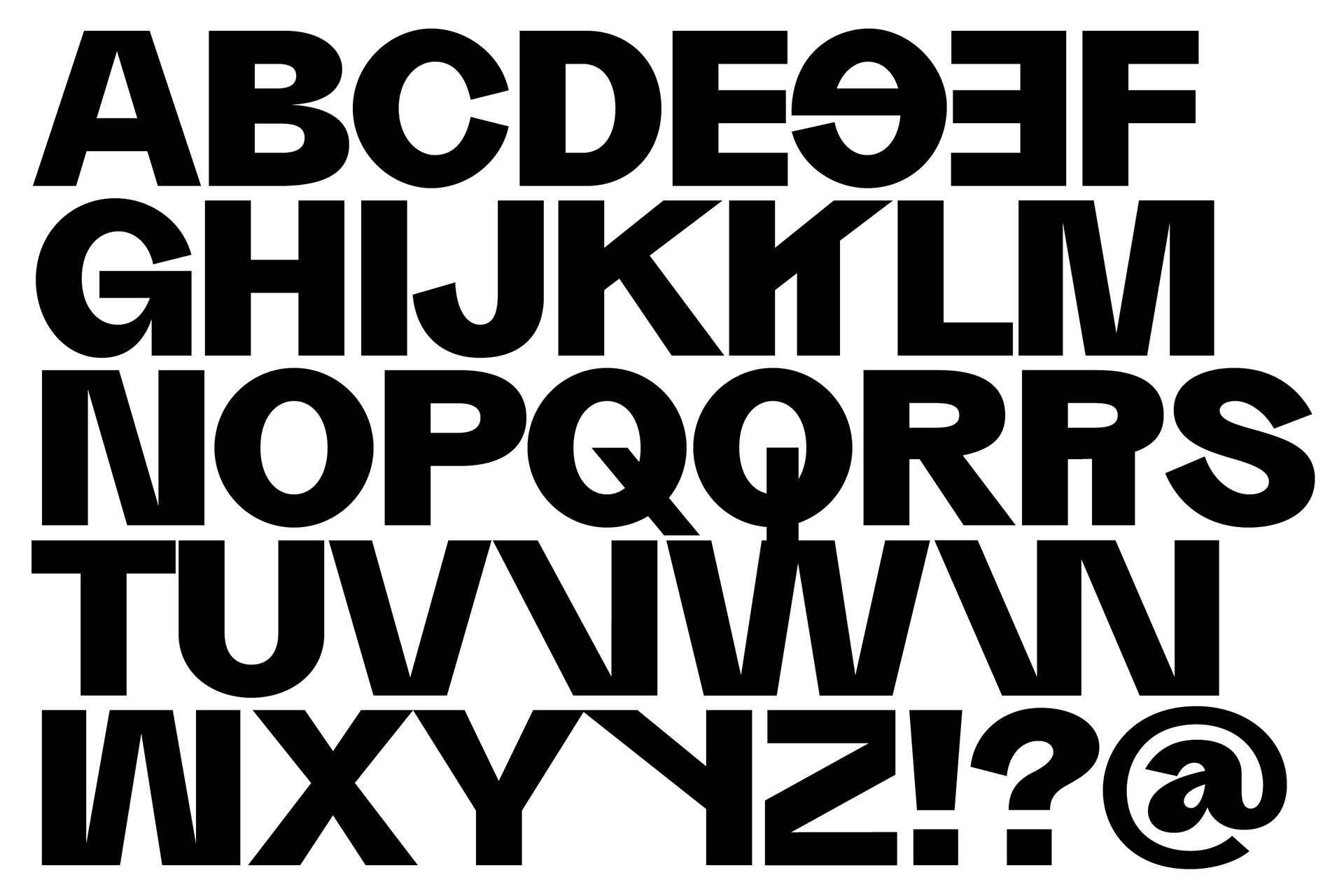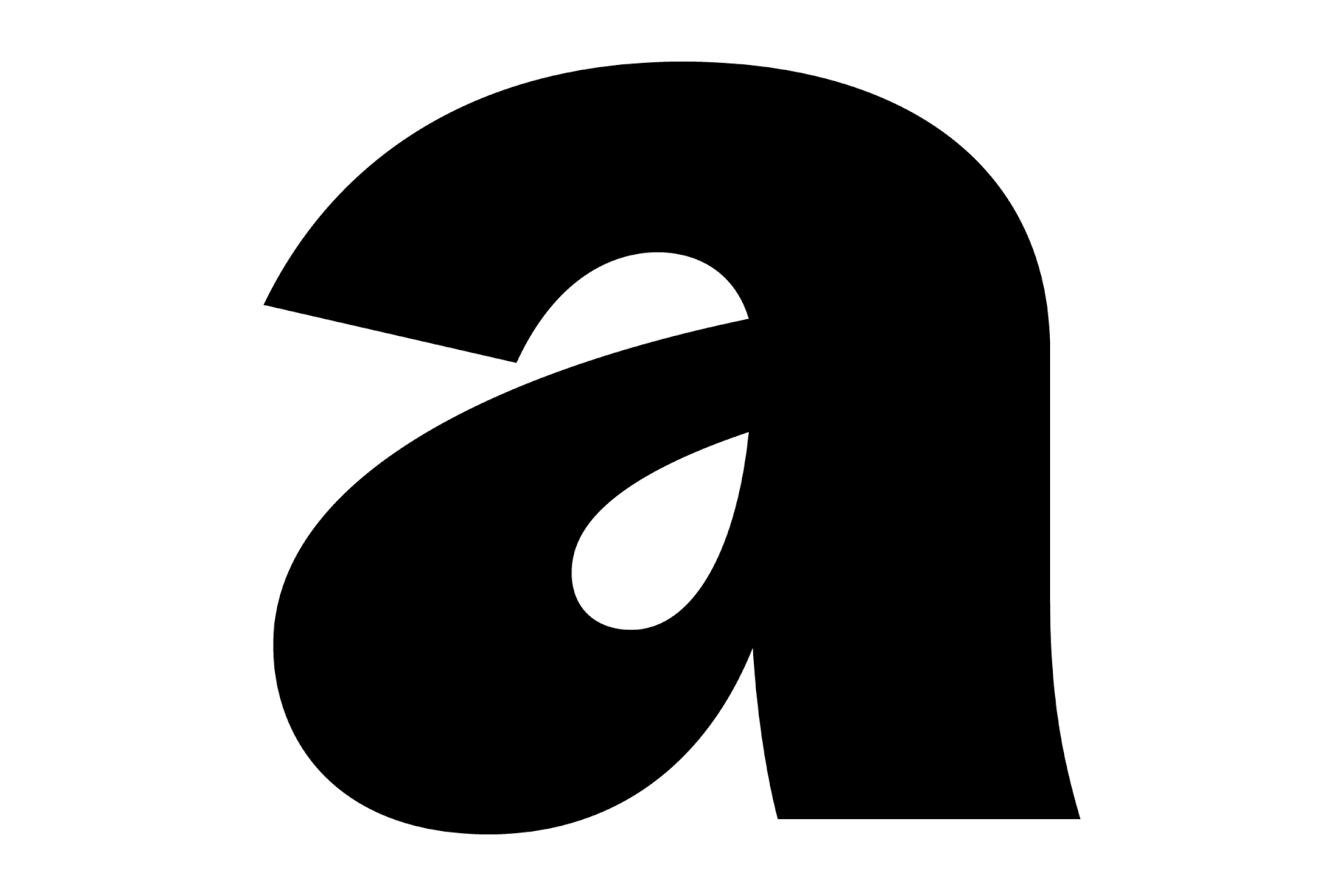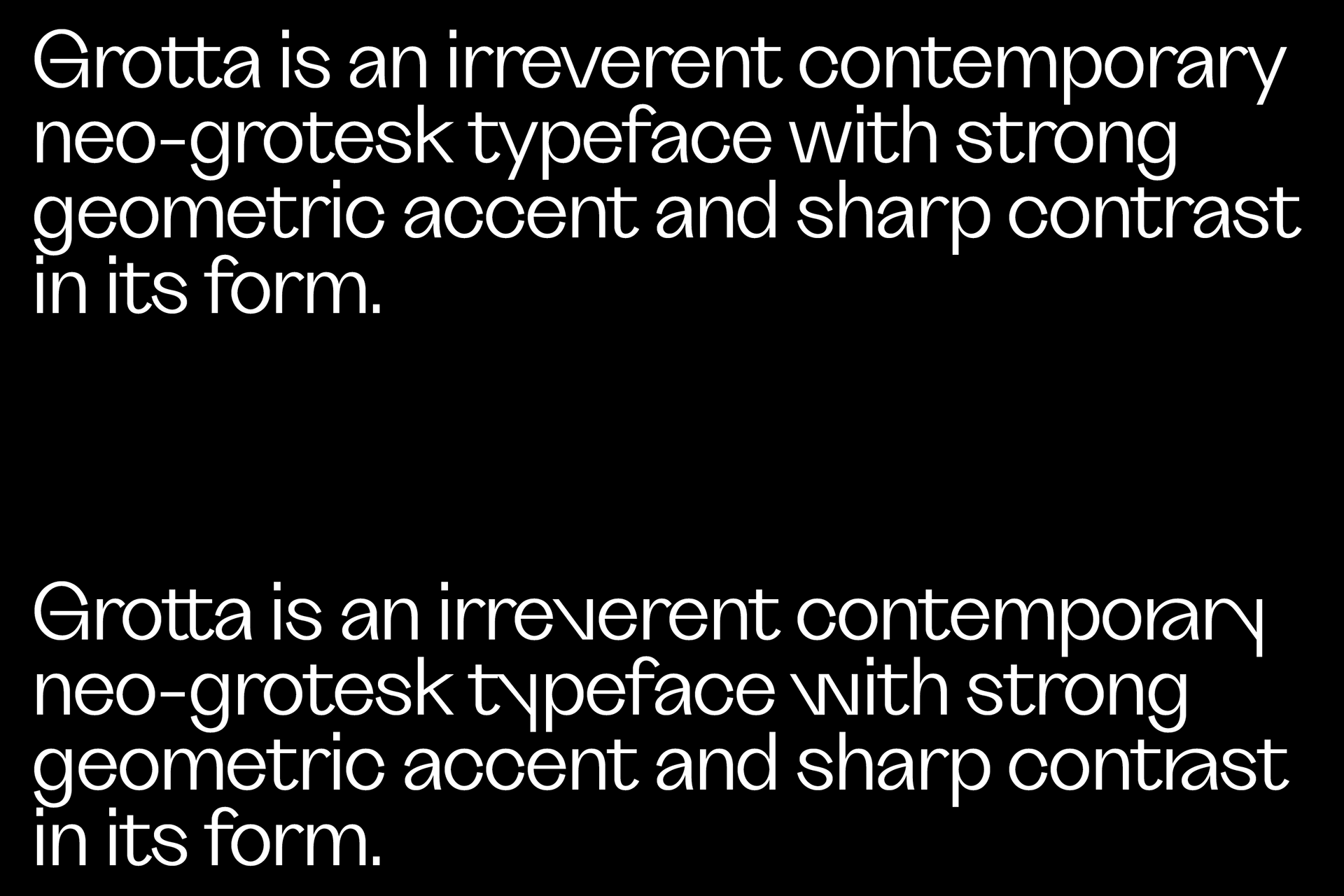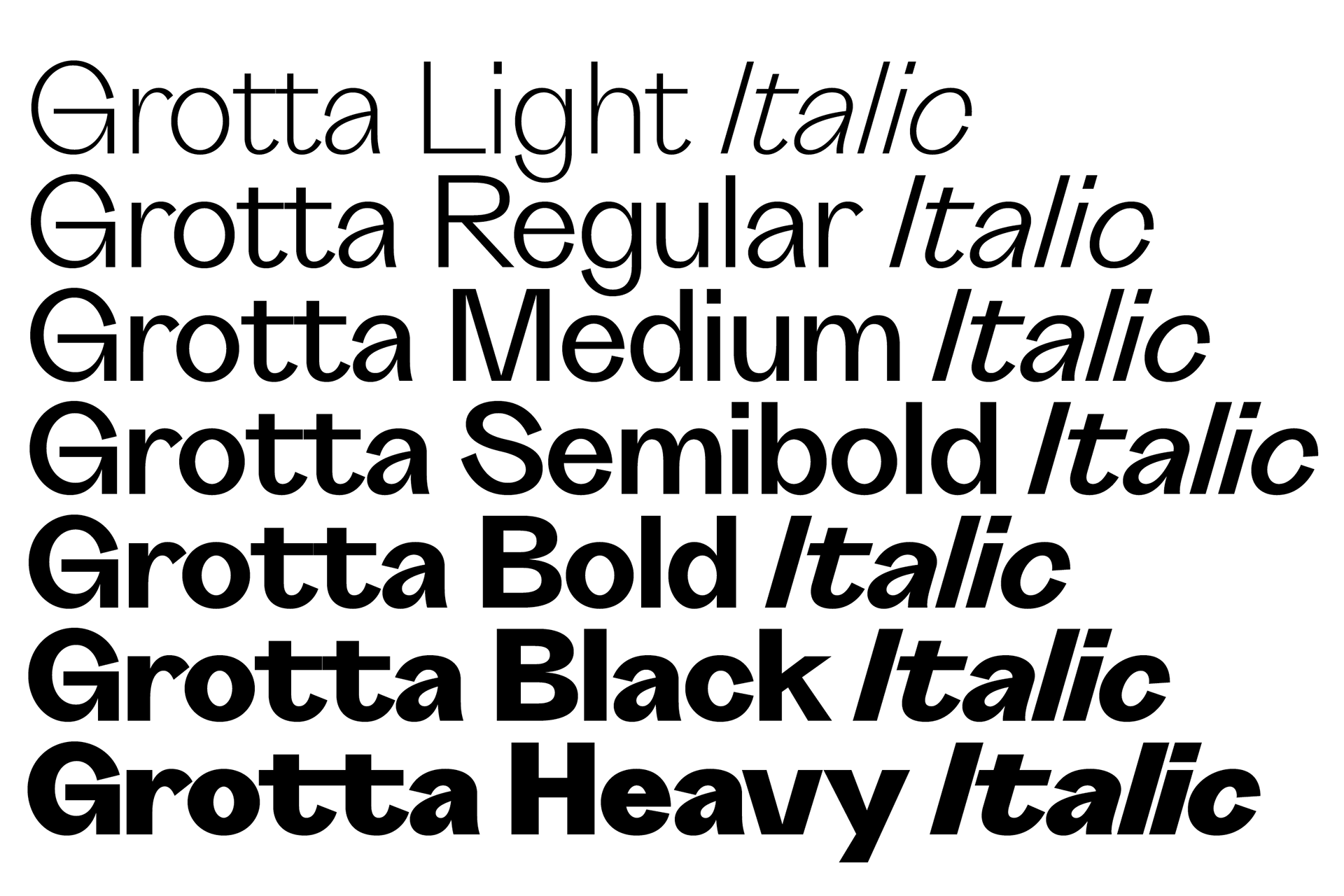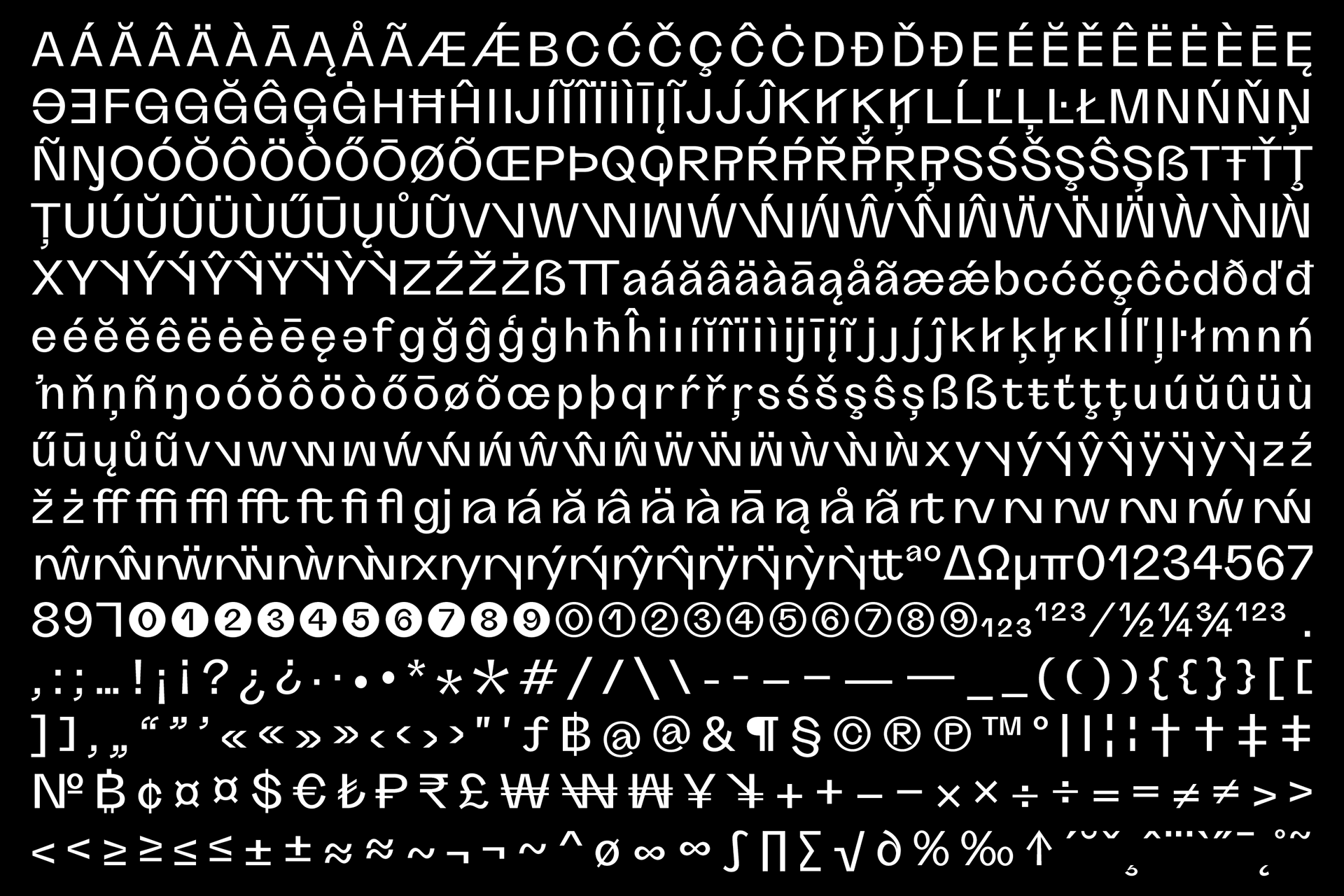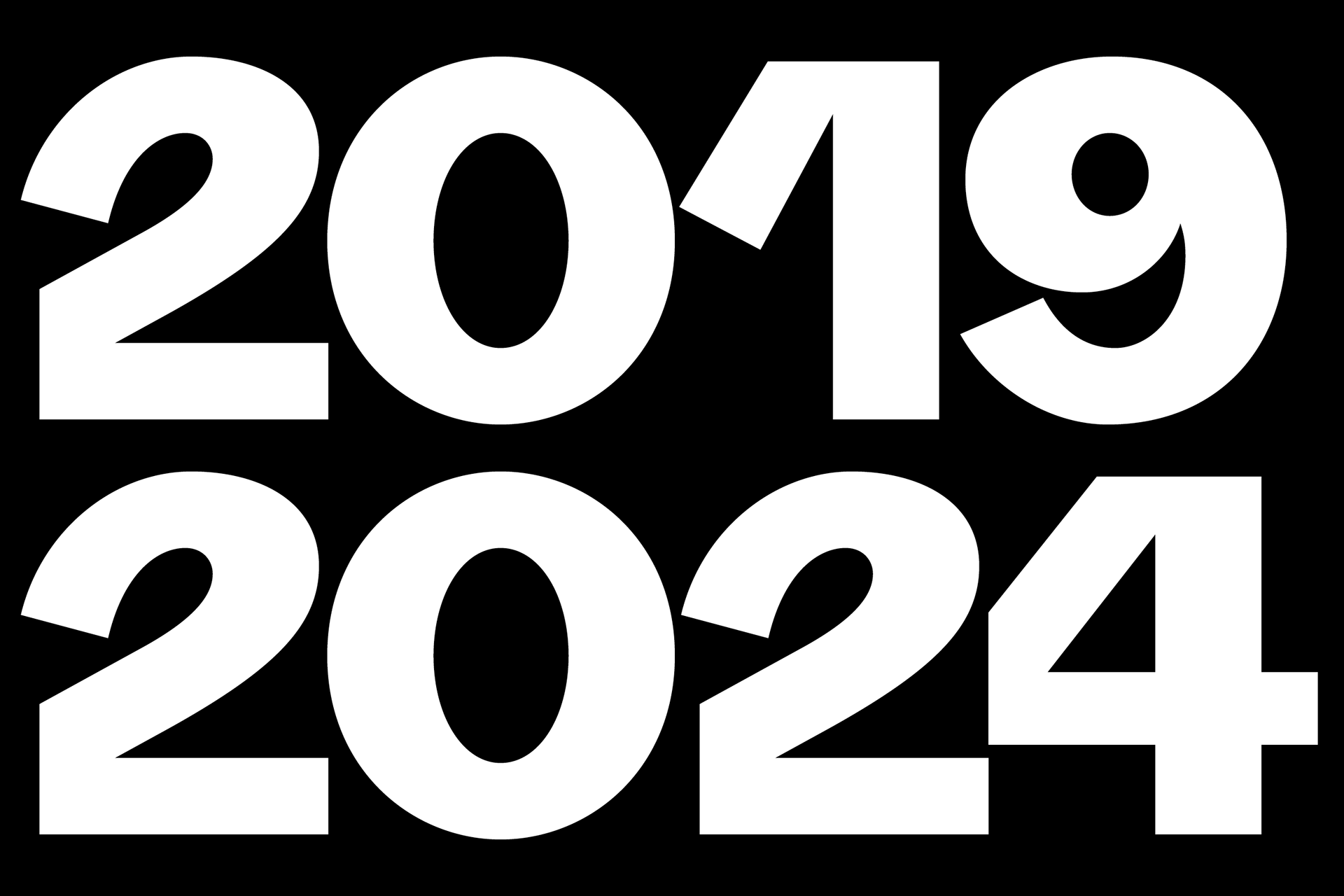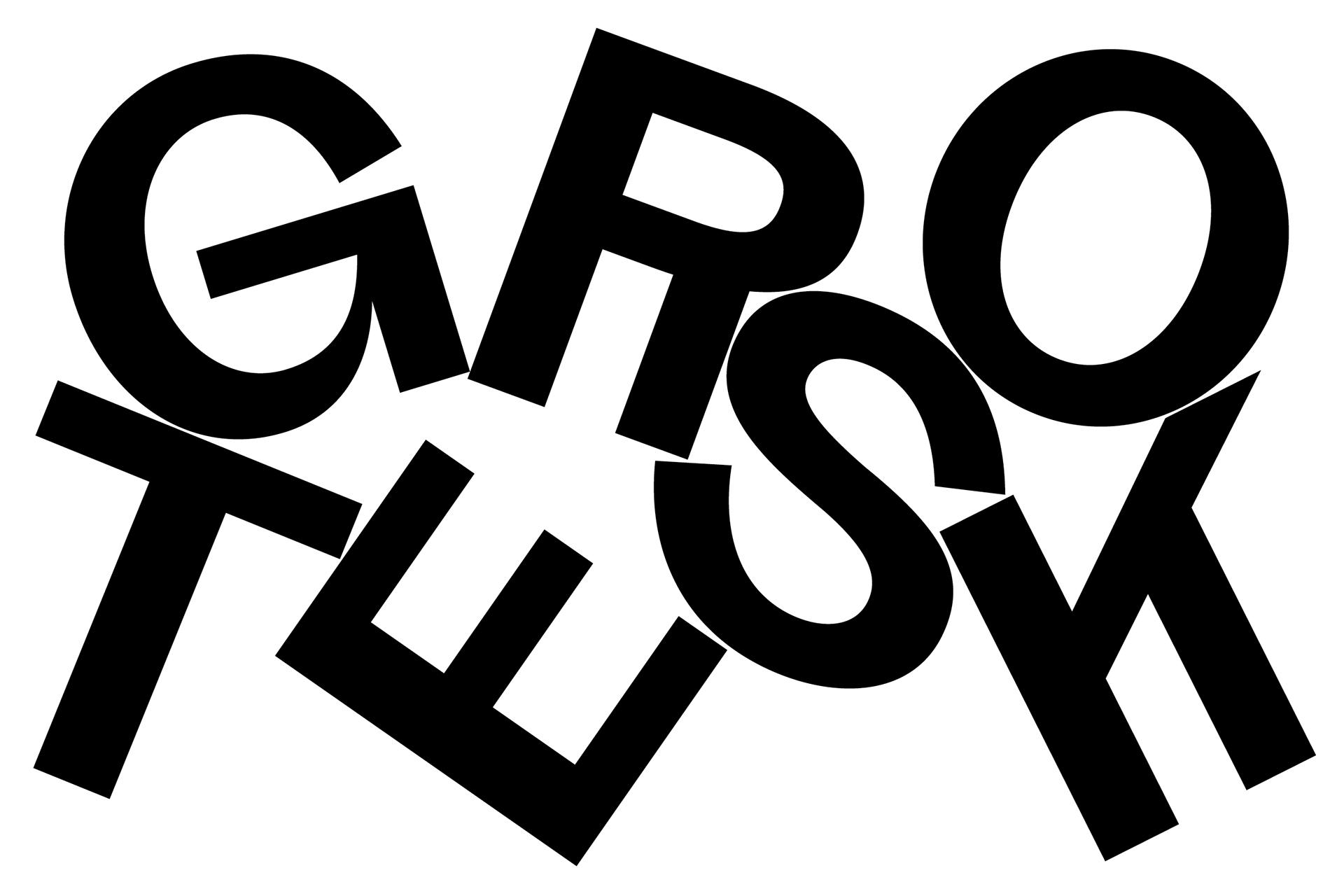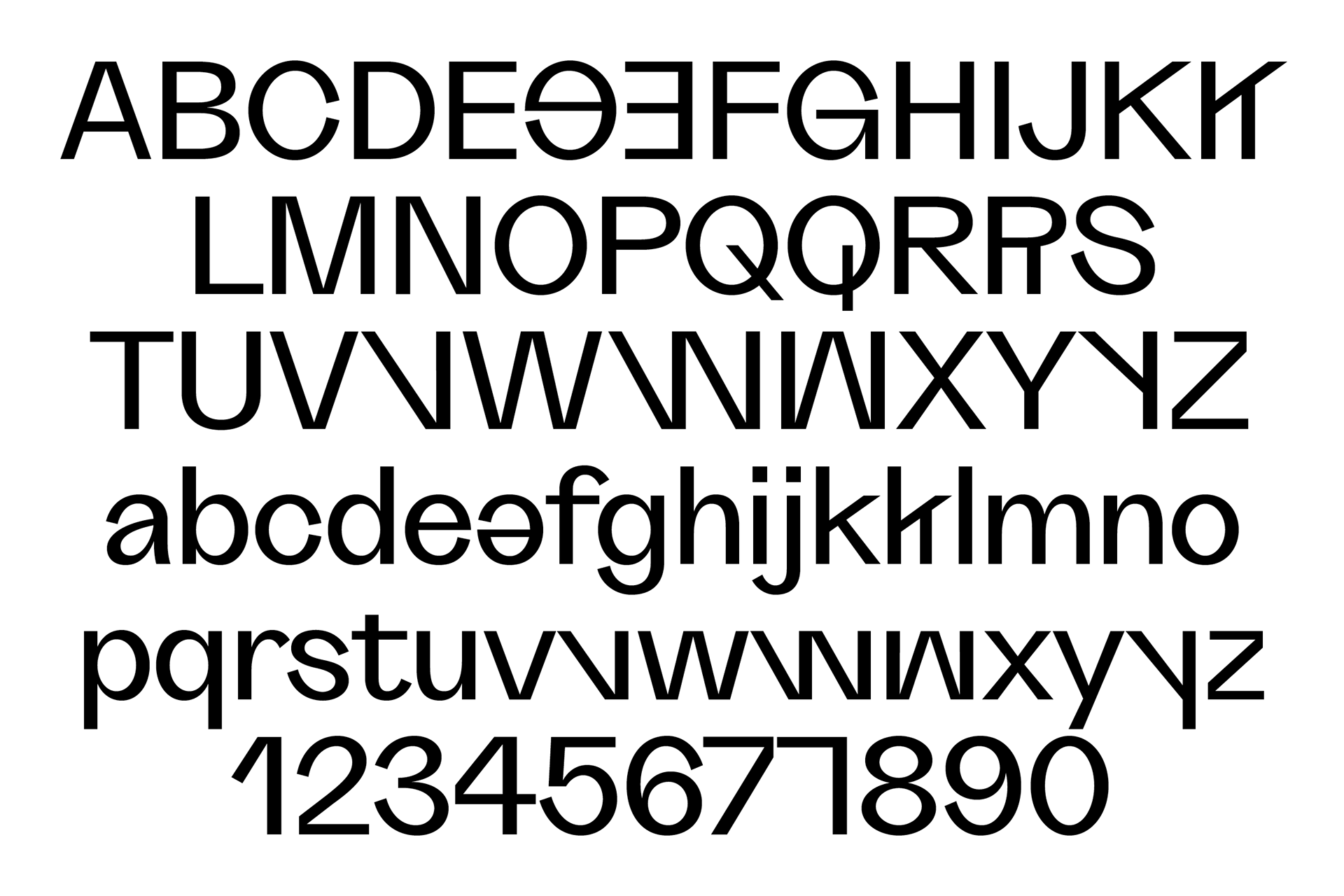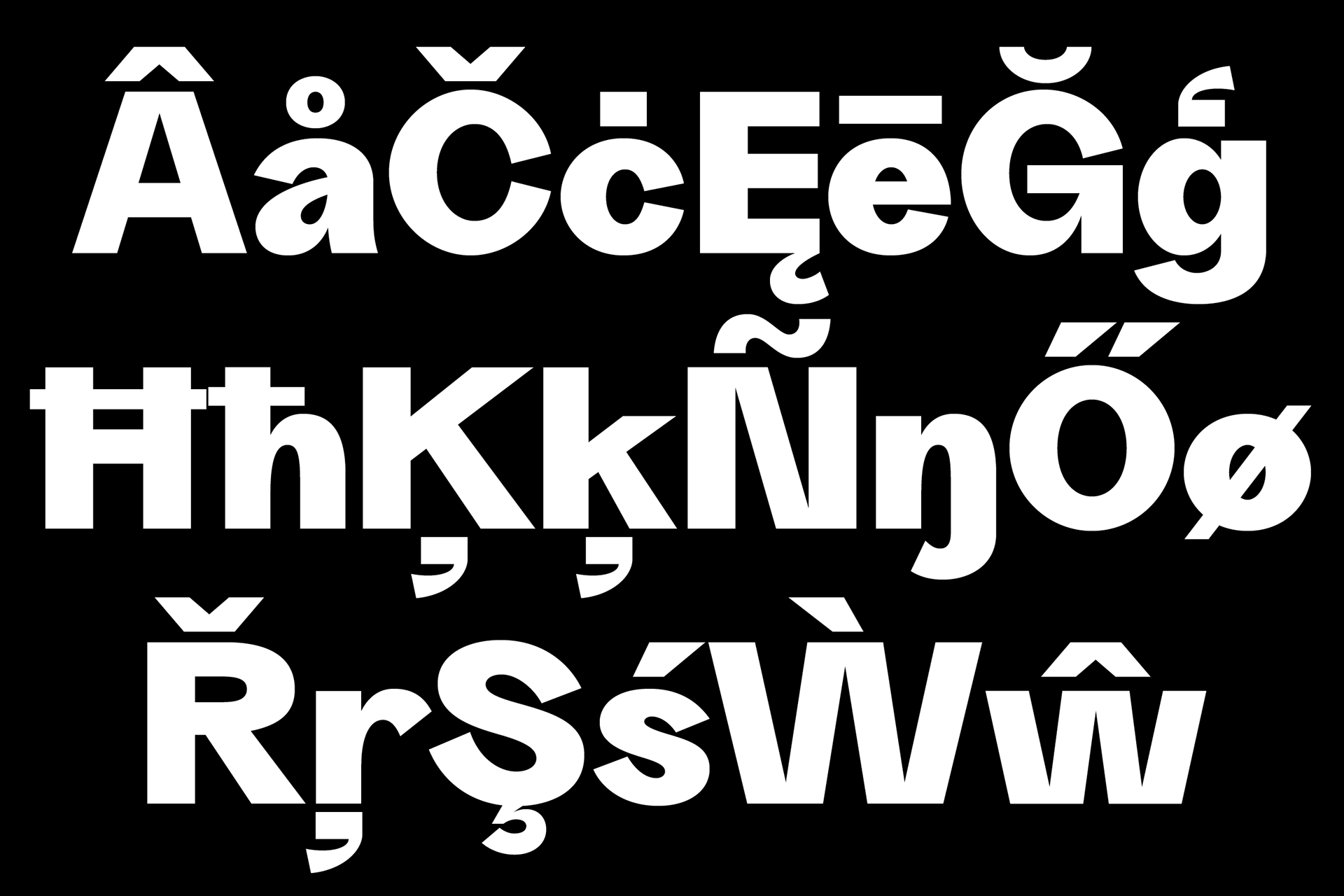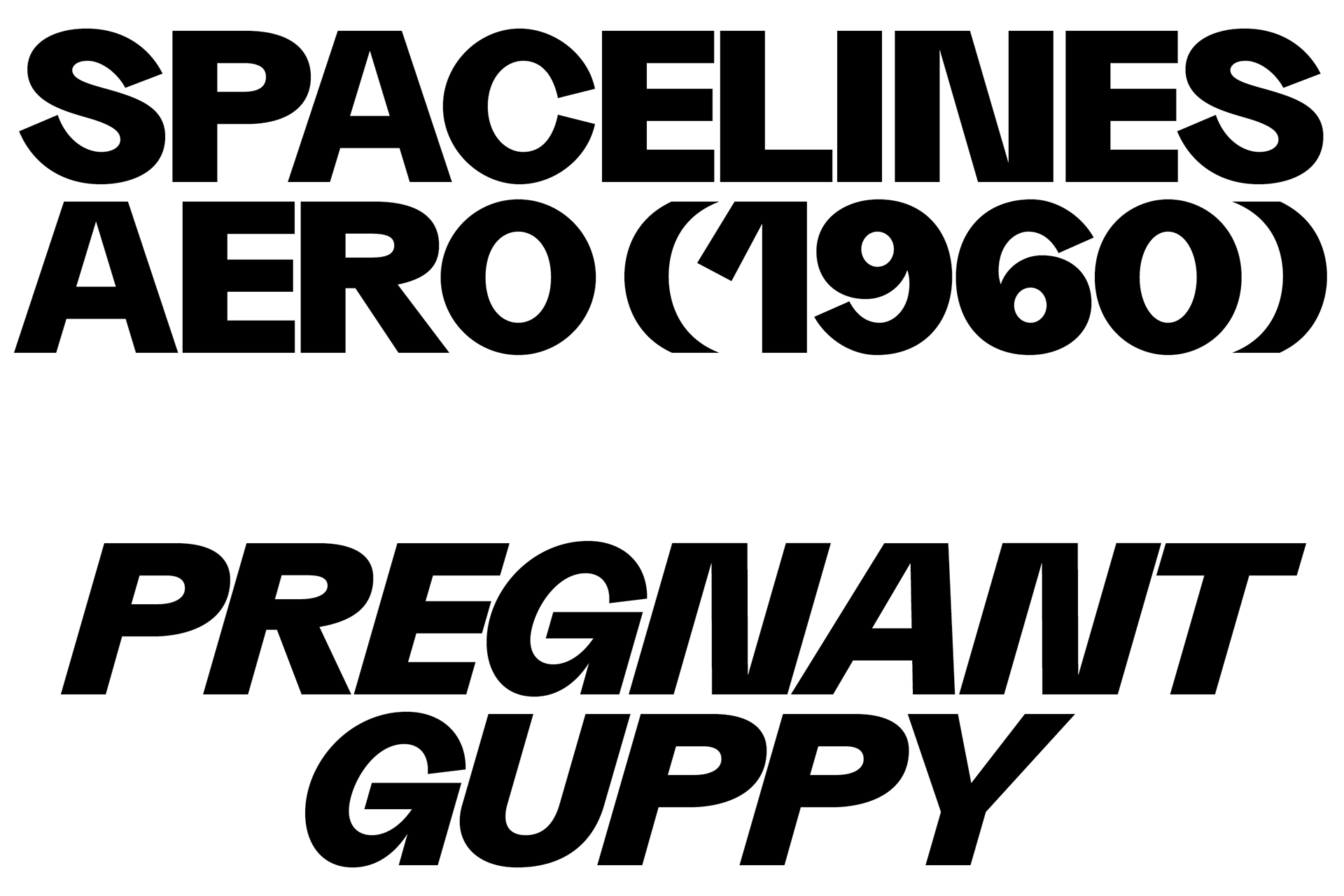
Characterized by tight apertures and an overall dynamic feeling it is suited for both display and text sizes. It is our interpretation of the 21st century grotesk, exuberant, irruptive and course that winks at the typeface from the past such as Venus-Grotesk and Monotype Grotesque. Provided with an extended language support anda wide range of OpenType features and stylistic set, Grotta is available in 7 weights from Light to Heavy with corresponding italics. The typeface has some special glyphs like the ə and the * on x-height and uppercase to make the use of gender-inclusive language a little bit easier. It also has some fancy ligatures!
It was developed at Due Studio with
Alessio Pompadura and Massimiliano Vitti,
who designed the Roman Letterforms from Light to Bold.
Amelie Schaeberle took part in designing the italics
and the weights Black and Heavy as an extension of the Grotta family.